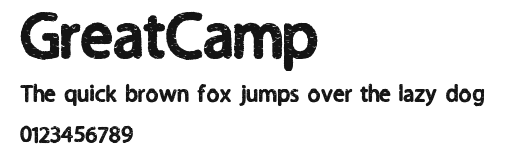
• Font Name: GreatCamp
• Full Font Name: GreatCamp
• Version: Version 1.00 July 25, 2013, initial release
• Designer: Xerographer Fonts Max Infeld
• Manufacturer: Xerographer Fonts
• Description: Made at Xerographer Studios in Chico,CA
About GreatCamp.ttf
GreatCamp.ttf is a modern, elegant sans-serif font designed for ultimate readability and visual harmony. Perfect for branding, headlines, web design, and print materials.